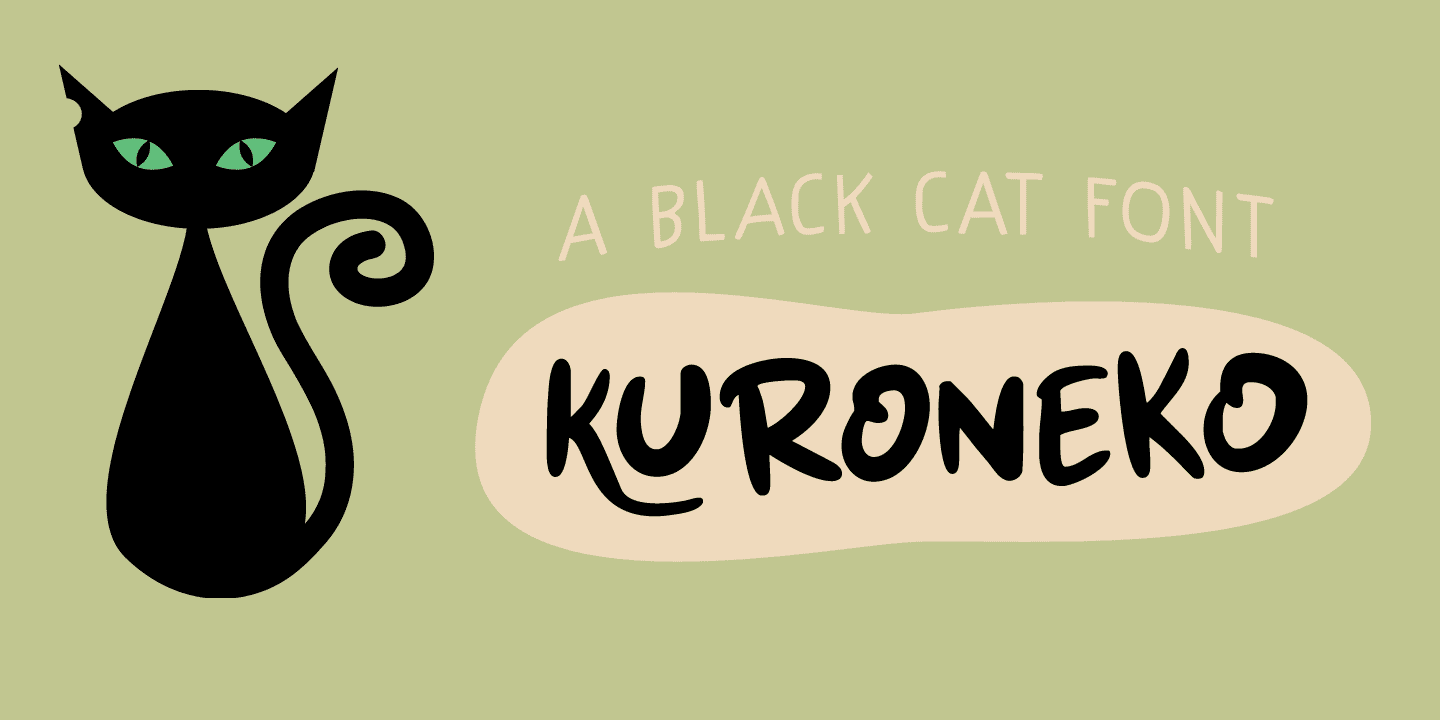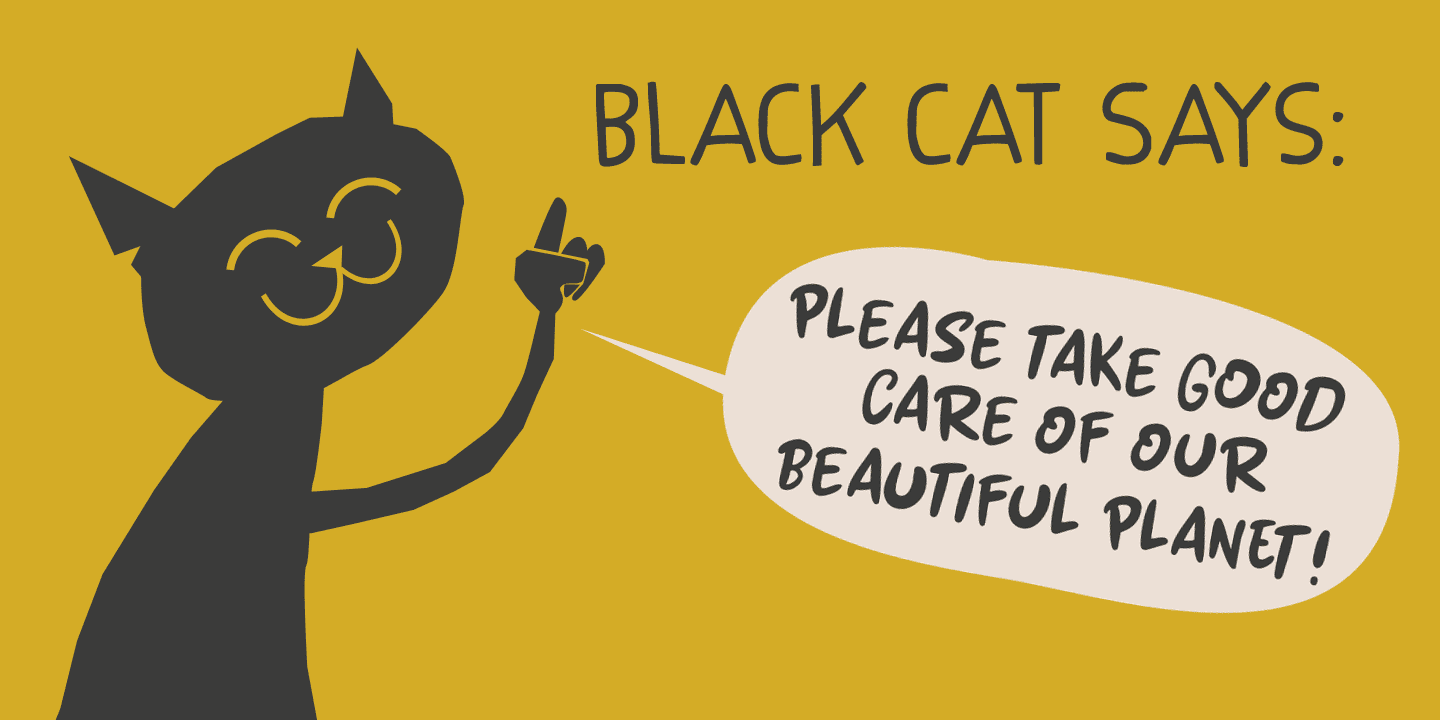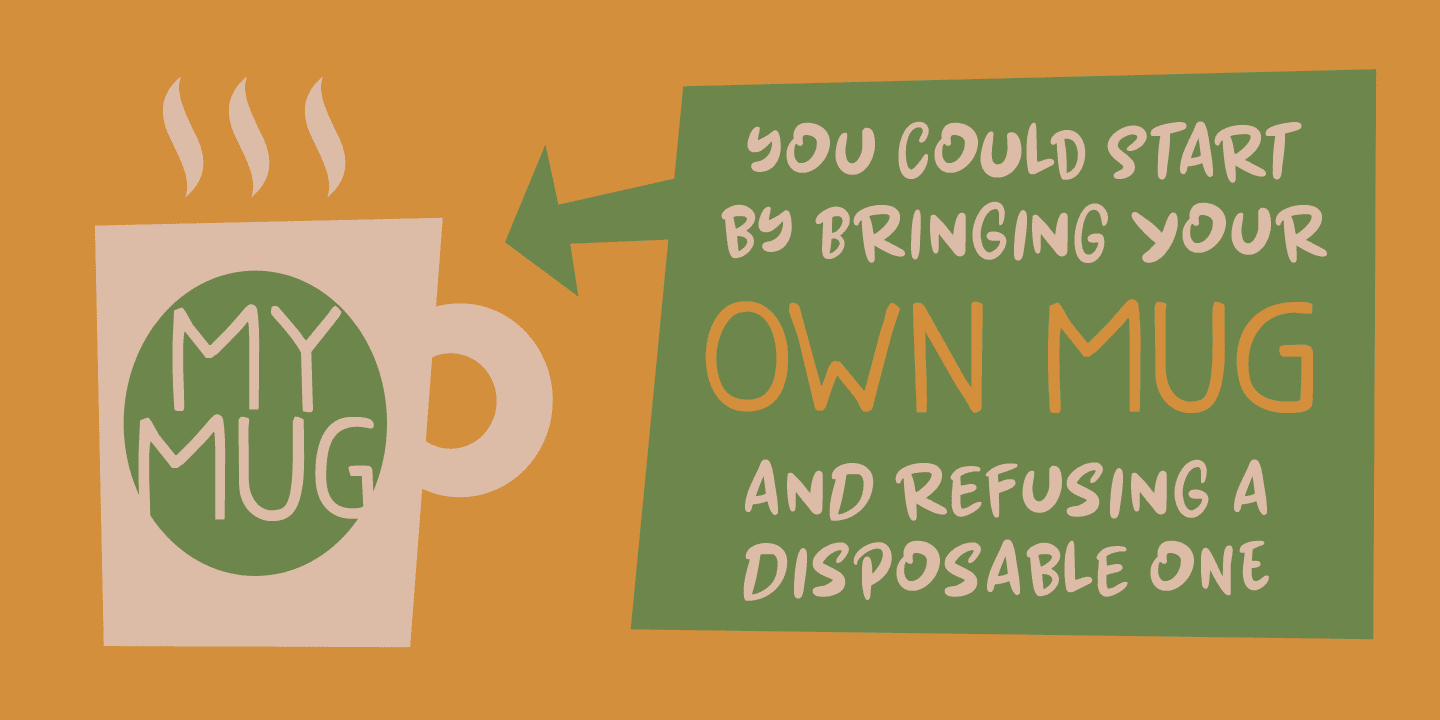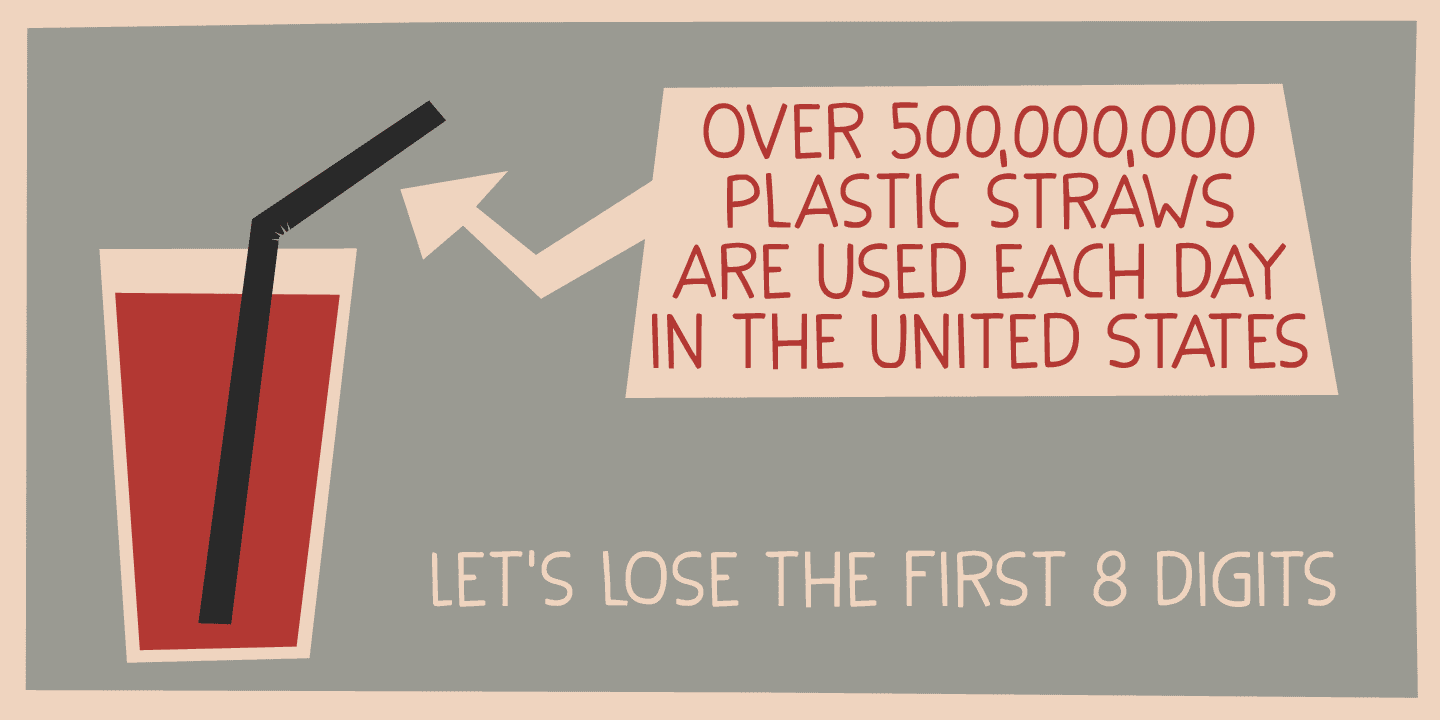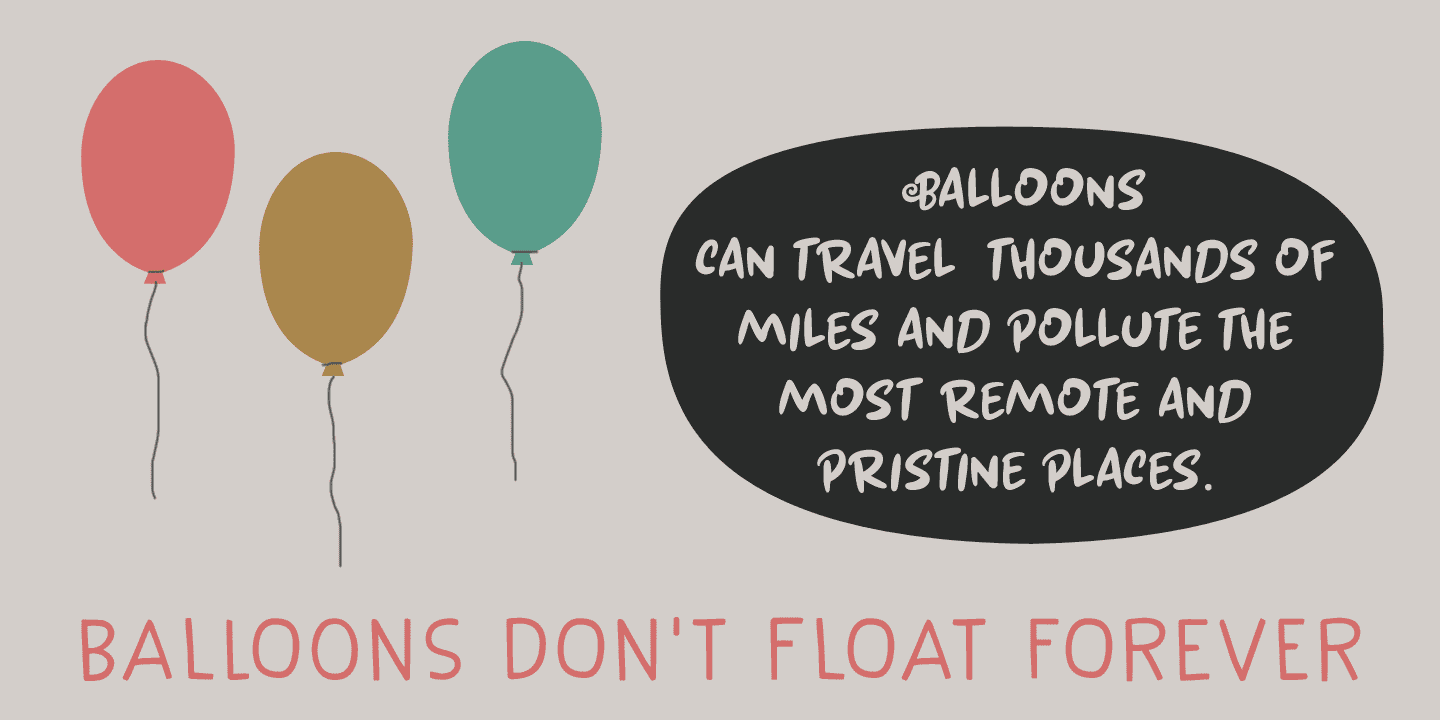
Kuroneko in Japanese means ‘ Black Cat’. I was working on a Japan itinerary for a friend and I told him about the luggage forwarding service by a company with a black cat in its logo. Wait: Black Cat? What’s that in Japanese? Cool name for a font!
Kuroneko font will not forward your luggage, nor was it made in Japan. But it IS a very versatile font family - even if you’re more of a dog person.